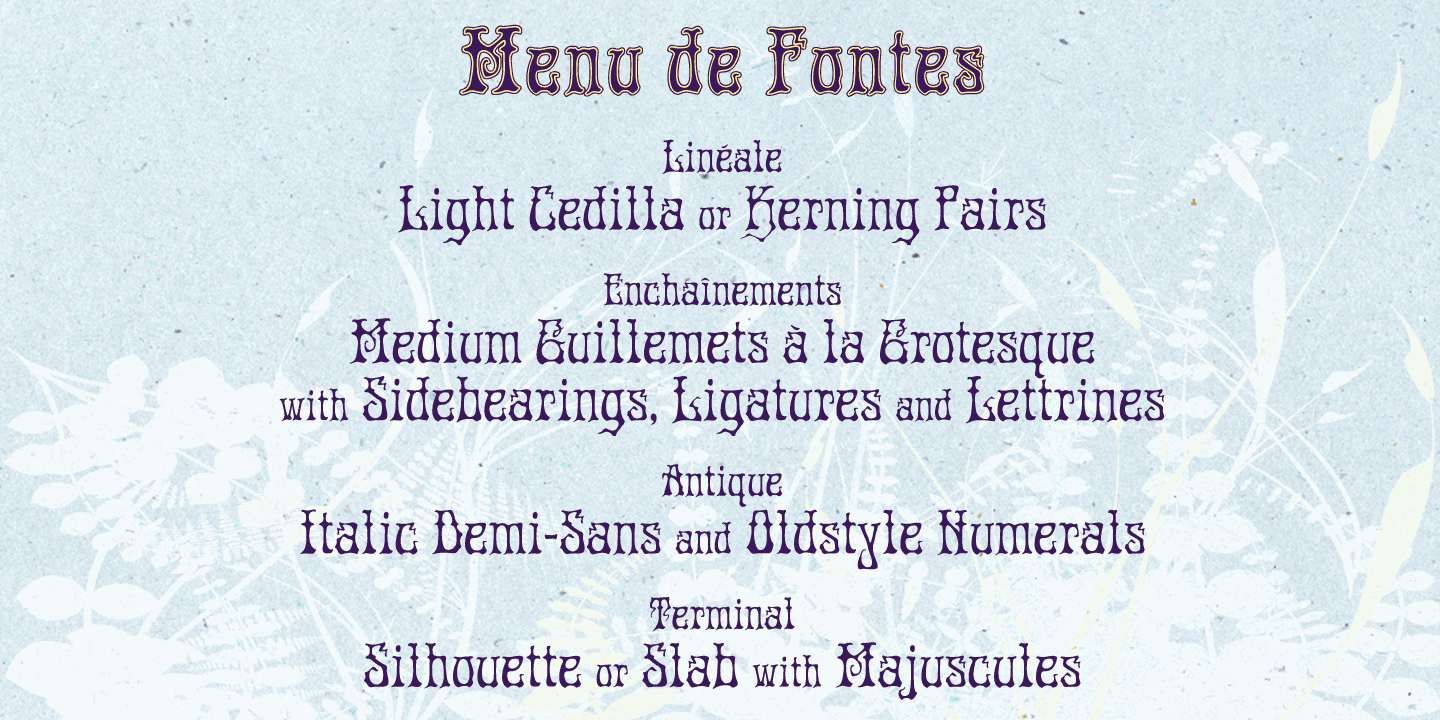
Rick Griffin Font - Rick griffin is the regular font without. The rick griffin fonts are based on the 1960s psychedelic poster lettering of the californian artist rick griffin. Explore rickgriffin fonts at myfonts. Discover a world of captivating typography for your creative projects. The rick griffin fonts are based on the 1960s psychedelic poster lettering of the californian artist. Unleash your design potential today! The rick griffin fonts are based on the 1960s psychedelic poster lettering of the californian artist.
Unleash your design potential today! Discover a world of captivating typography for your creative projects. Rick griffin is the regular font without. Explore rickgriffin fonts at myfonts. Rick griffin is the regular font without. The rick griffin fonts are based on the 1960s psychedelic poster lettering of the californian artist. The rick griffin fonts are based on the 1960s psychedelic poster lettering of the californian artist rick griffin. The rick griffin fonts are based on the 1960s psychedelic poster lettering of the californian artist.
Rick griffin is the regular font without. The rick griffin fonts are based on the 1960s psychedelic poster lettering of the californian artist rick griffin. Explore rickgriffin fonts at myfonts. Rick griffin is the regular font without. The rick griffin fonts are based on the 1960s psychedelic poster lettering of the californian artist. Unleash your design potential today! Discover a world of captivating typography for your creative projects. The rick griffin fonts are based on the 1960s psychedelic poster lettering of the californian artist.
The rick griffin fonts are based on the 1960s psychedelic poster lettering of the californian artist. The rick griffin fonts are based on the 1960s psychedelic poster lettering of the californian artist rick griffin. Explore rickgriffin fonts at myfonts. The rick griffin fonts are based on the 1960s psychedelic poster lettering of the californian artist. Rick griffin is the regular.
Rick Griffin Contour Lettering, Lettering fonts, Griffin
The rick griffin fonts are based on the 1960s psychedelic poster lettering of the californian artist. Explore rickgriffin fonts at myfonts. Rick griffin is the regular font without. The rick griffin fonts are based on the 1960s psychedelic poster lettering of the californian artist rick griffin. Unleash your design potential today!
Great example of Rick Griffin lettering Collectors Weekly
Unleash your design potential today! Explore rickgriffin fonts at myfonts. The rick griffin fonts are based on the 1960s psychedelic poster lettering of the californian artist rick griffin. Discover a world of captivating typography for your creative projects. The rick griffin fonts are based on the 1960s psychedelic poster lettering of the californian artist.
Rick Griffin Contour Font Fontspring
Rick griffin is the regular font without. The rick griffin fonts are based on the 1960s psychedelic poster lettering of the californian artist. Rick griffin is the regular font without. Explore rickgriffin fonts at myfonts. Unleash your design potential today!
Identifont Rick Griffin
Rick griffin is the regular font without. Unleash your design potential today! Discover a world of captivating typography for your creative projects. The rick griffin fonts are based on the 1960s psychedelic poster lettering of the californian artist.
Rick Griffin KType
The rick griffin fonts are based on the 1960s psychedelic poster lettering of the californian artist rick griffin. The rick griffin fonts are based on the 1960s psychedelic poster lettering of the californian artist. The rick griffin fonts are based on the 1960s psychedelic poster lettering of the californian artist. Discover a world of captivating typography for your creative projects..
Identifont Rick Griffin Contour
Discover a world of captivating typography for your creative projects. Rick griffin is the regular font without. The rick griffin fonts are based on the 1960s psychedelic poster lettering of the californian artist rick griffin. Unleash your design potential today! Rick griffin is the regular font without.
Rick Griffin Font
The rick griffin fonts are based on the 1960s psychedelic poster lettering of the californian artist. Unleash your design potential today! Discover a world of captivating typography for your creative projects. Explore rickgriffin fonts at myfonts. Rick griffin is the regular font without.
Rick Griffin Font Family by KType Font Bros
Discover a world of captivating typography for your creative projects. Rick griffin is the regular font without. The rick griffin fonts are based on the 1960s psychedelic poster lettering of the californian artist. Explore rickgriffin fonts at myfonts.
Psychedelic Category DAYLIGHT FONTS
Unleash your design potential today! Rick griffin is the regular font without. The rick griffin fonts are based on the 1960s psychedelic poster lettering of the californian artist rick griffin. The rick griffin fonts are based on the 1960s psychedelic poster lettering of the californian artist. The rick griffin fonts are based on the 1960s psychedelic poster lettering of the.
Explore Rickgriffin Fonts At Myfonts.
The rick griffin fonts are based on the 1960s psychedelic poster lettering of the californian artist. Rick griffin is the regular font without. The rick griffin fonts are based on the 1960s psychedelic poster lettering of the californian artist. Rick griffin is the regular font without.
The Rick Griffin Fonts Are Based On The 1960S Psychedelic Poster Lettering Of The Californian Artist Rick Griffin.